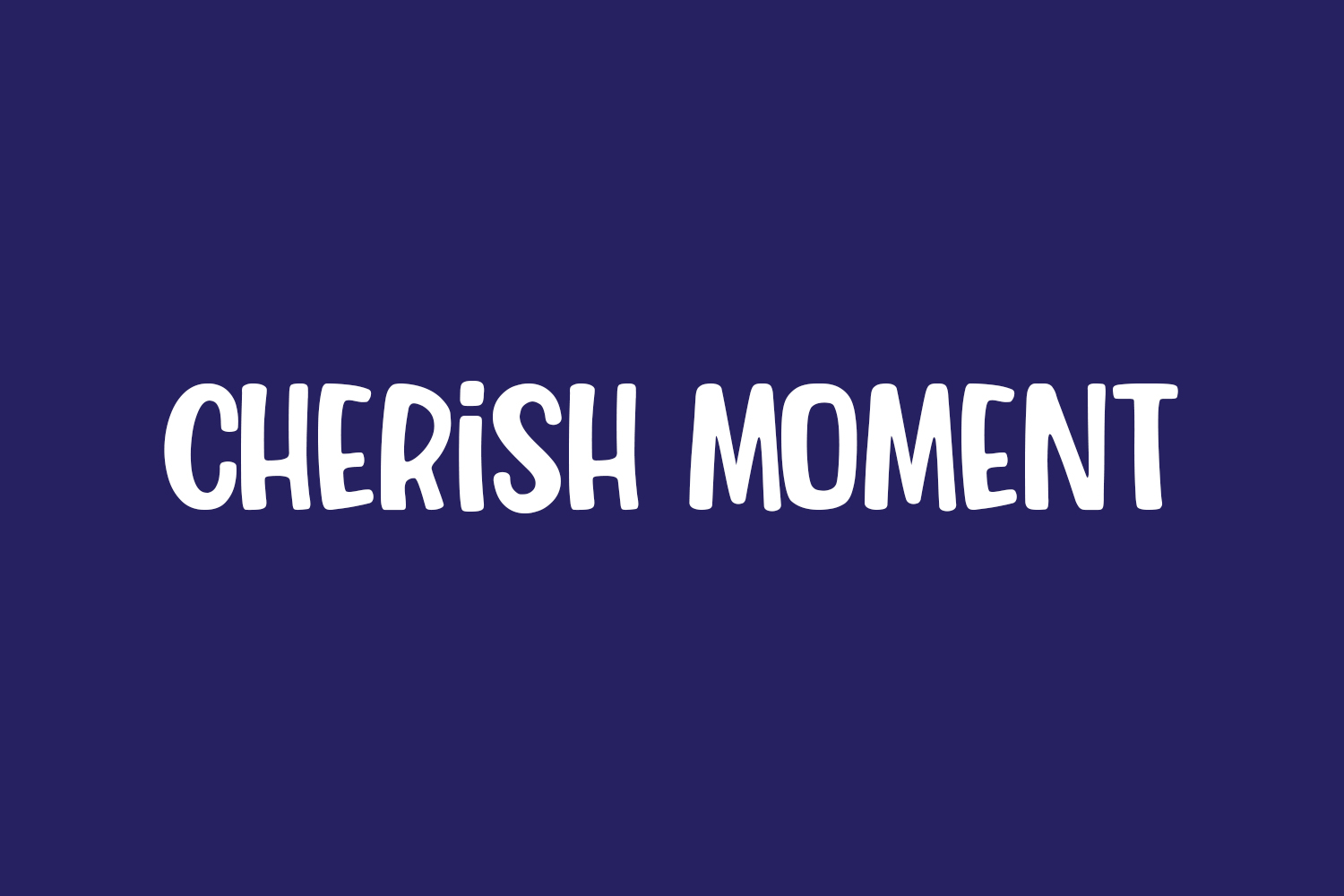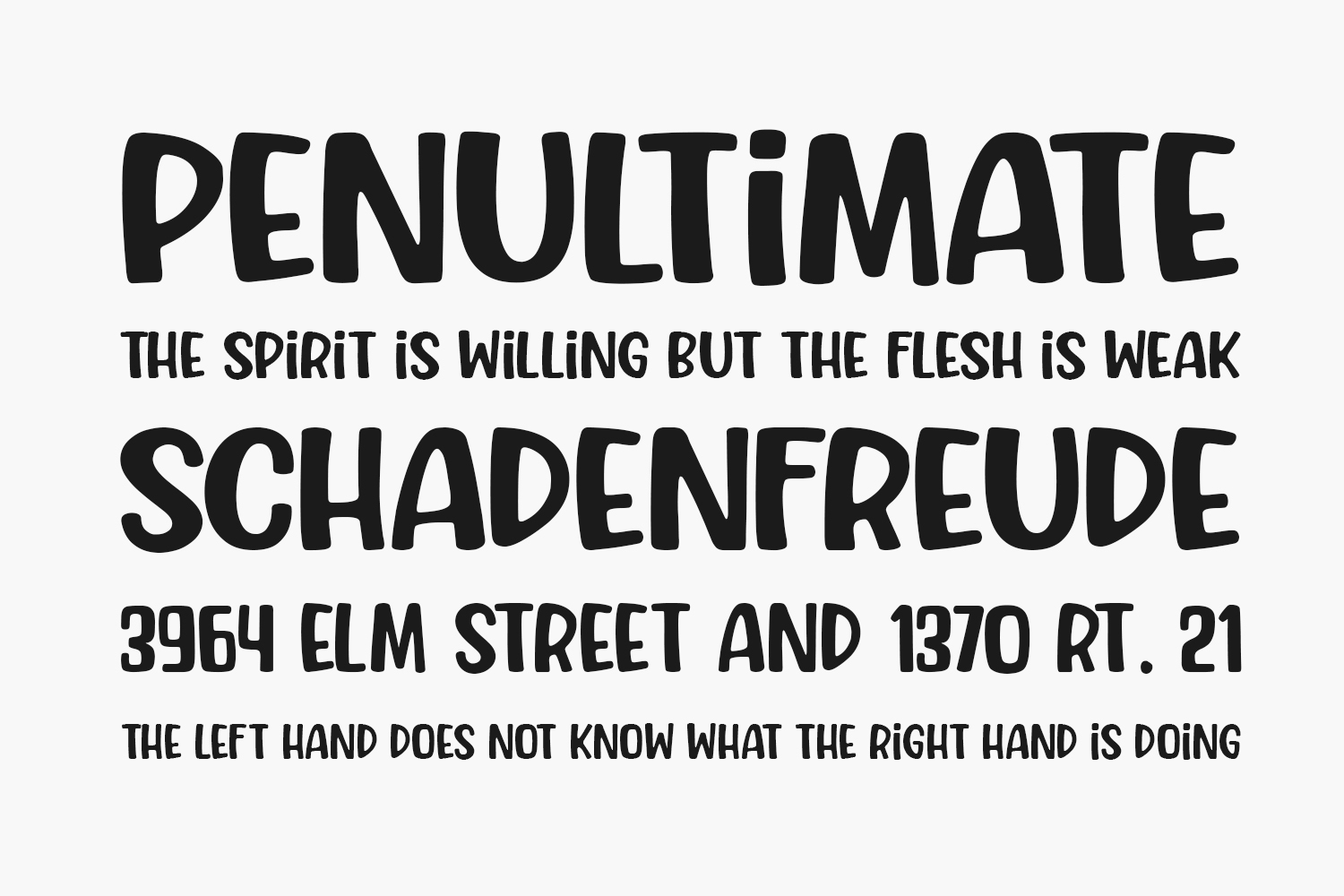
Cherish Moment Free Font is a quirky and colorful display font. Its friendly feel makes this font incredibly versatile, fitting a wide range of contexts. Add it to your creative ideas and notice how it makes them stand out. Cherish Moment Free Font was designed by Subectype & Orenari and is free for personal use only. Please purchase the full version for commercial use.
Designed by Subectype & Orenari